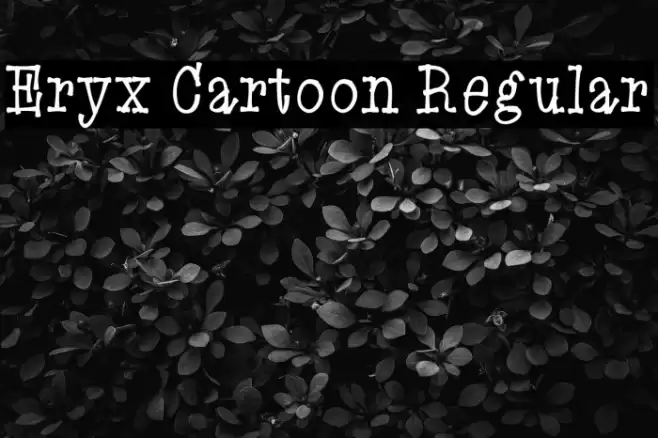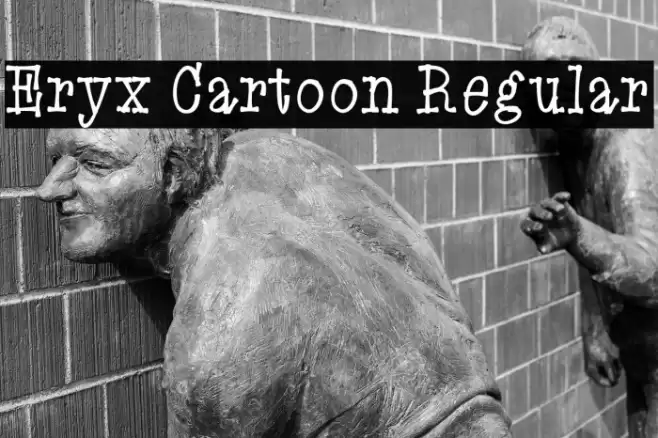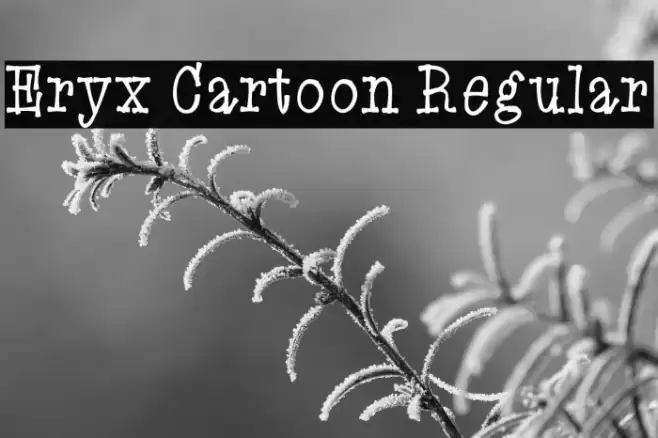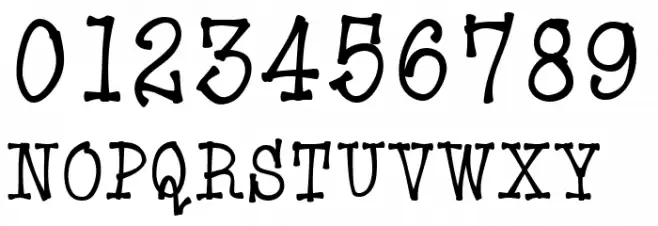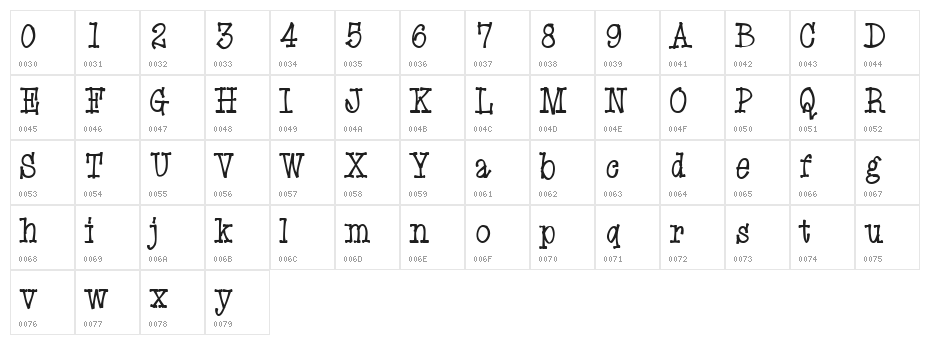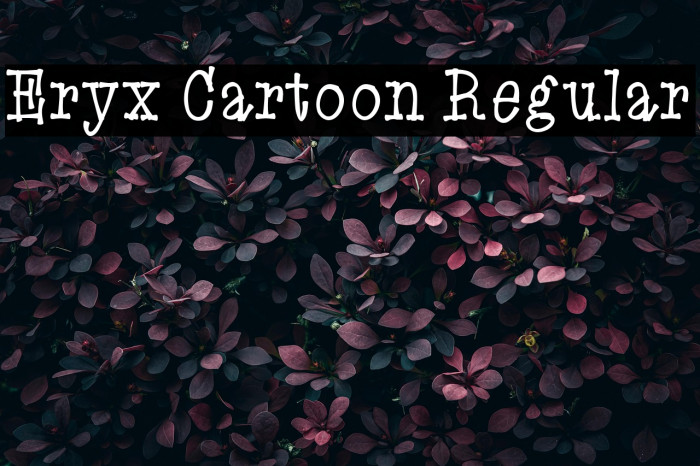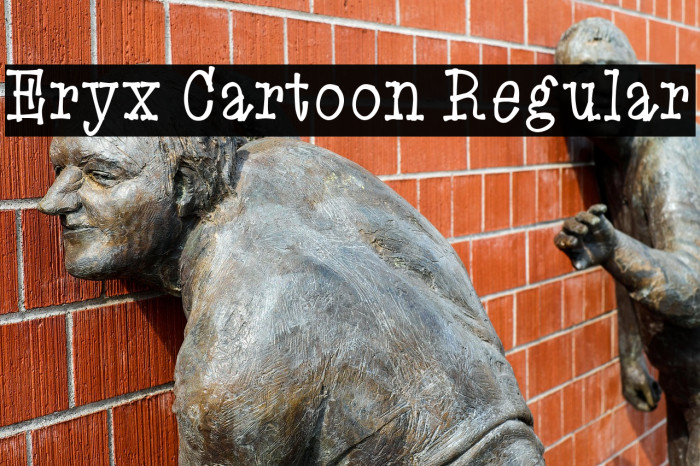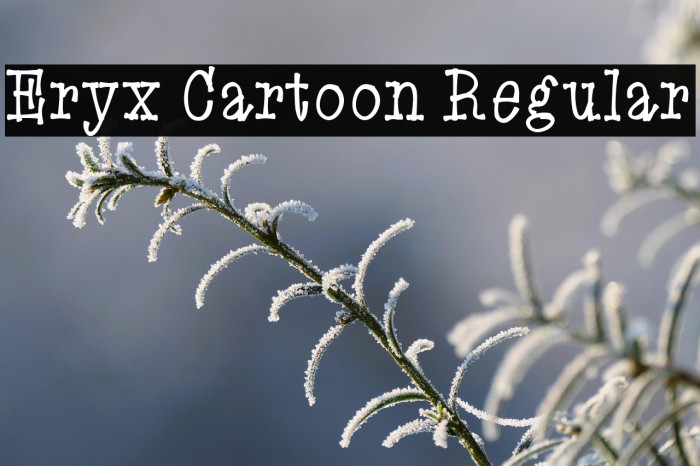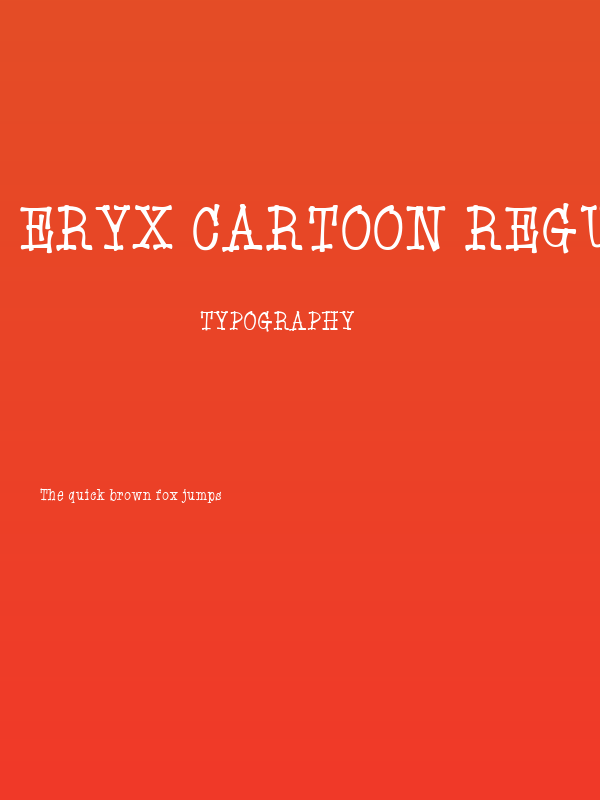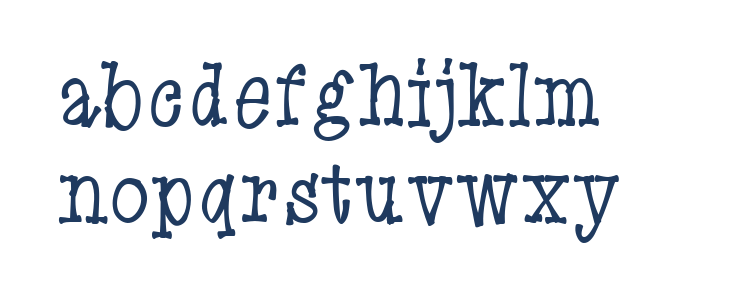
Eryx Cartoon Regular Font
Eryx Cartoon Regular Description
This playful and whimsical font features a hand-drawn, cartoonish style with irregular, slightly wavy lines that give it a lively and informal appearance. Each character is uniquely crafted, with varying stroke thicknesses that add to its quirky charm. The uppercase and lowercase letters maintain a consistent style, while the numbers and special characters are equally expressive. The font's design is reminiscent of doodles or comic book lettering, making it ideal for projects that require a fun and engaging visual element.
A playful, hand-drawn font with a cartoonish and whimsical style from Regular fonts.
- Proposed Projects: Ideal for children's books, comic strips, playful branding, and creative posters.